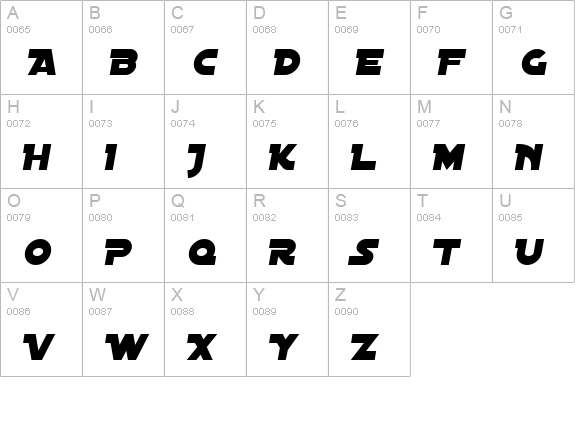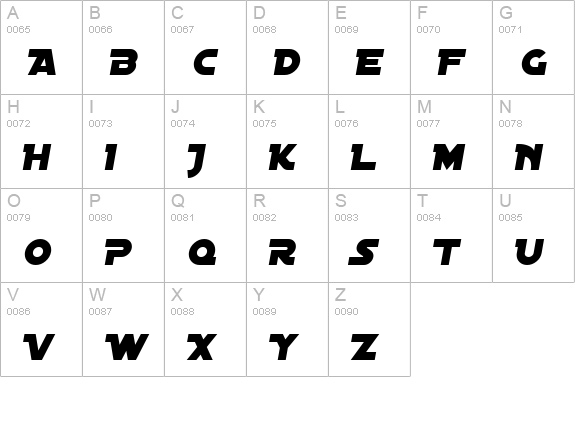
Distant Galaxy Alternate Italic is a distinctive, italic variant in the Distant typeface family \xE2\x80\x94 well suited to design and typography projects.
Distant Galaxy Alternate Italic is a mysterious and futuristic font that will transport your designs to another dimension. Its sleek and slanted appearance gives off a sense of otherworldly elegance, making it perfect for projects that require a touch of cosmic flair. Whether you're creating posters, logos, or website designs, this font will add a unique and captivating element to your work. The best part? Distant Galaxy Alternate Italic is available for free download at FontsMarket.com. Embrace the endless possibilities of this font and let your creativity soar across the vast expanse of the design universe. Download now and bring a touch of interstellar magic to your projects.